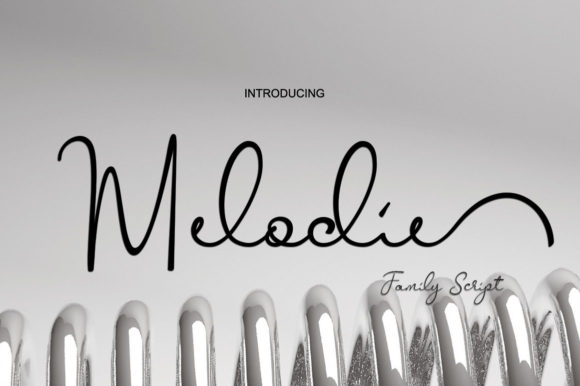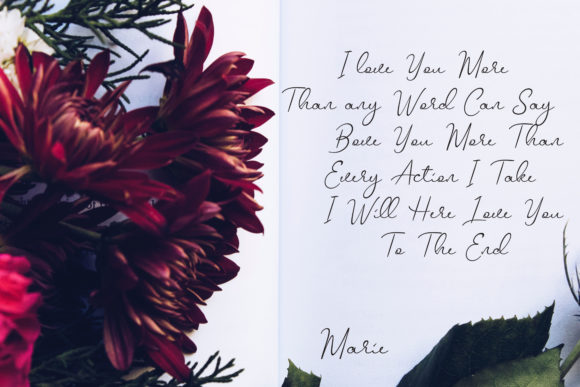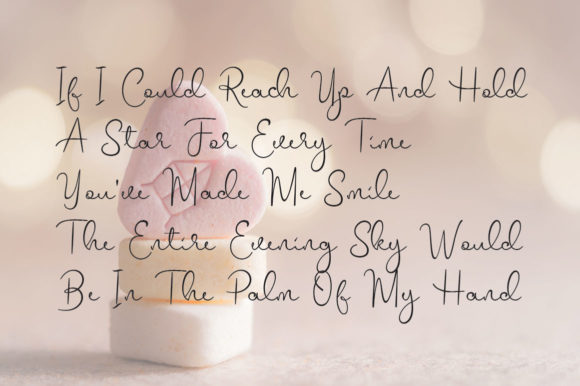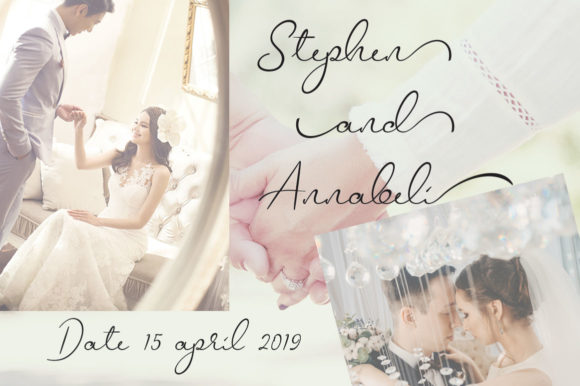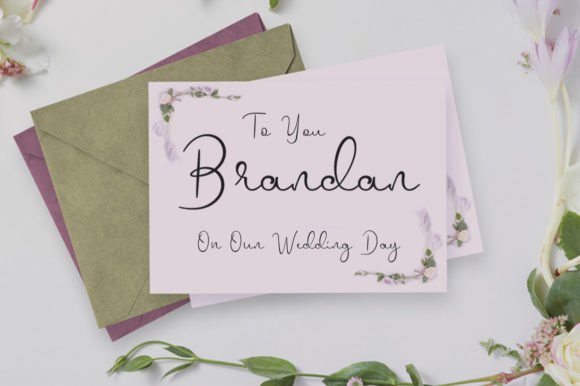
Melodie Font
About Melodie Font
The Melodie is a fresh and modern script font. It has a handmade calligraphy style and includes amazing decorative characters. It can be used for greeting cards, branding material, business cards, quotes, posters, and more!